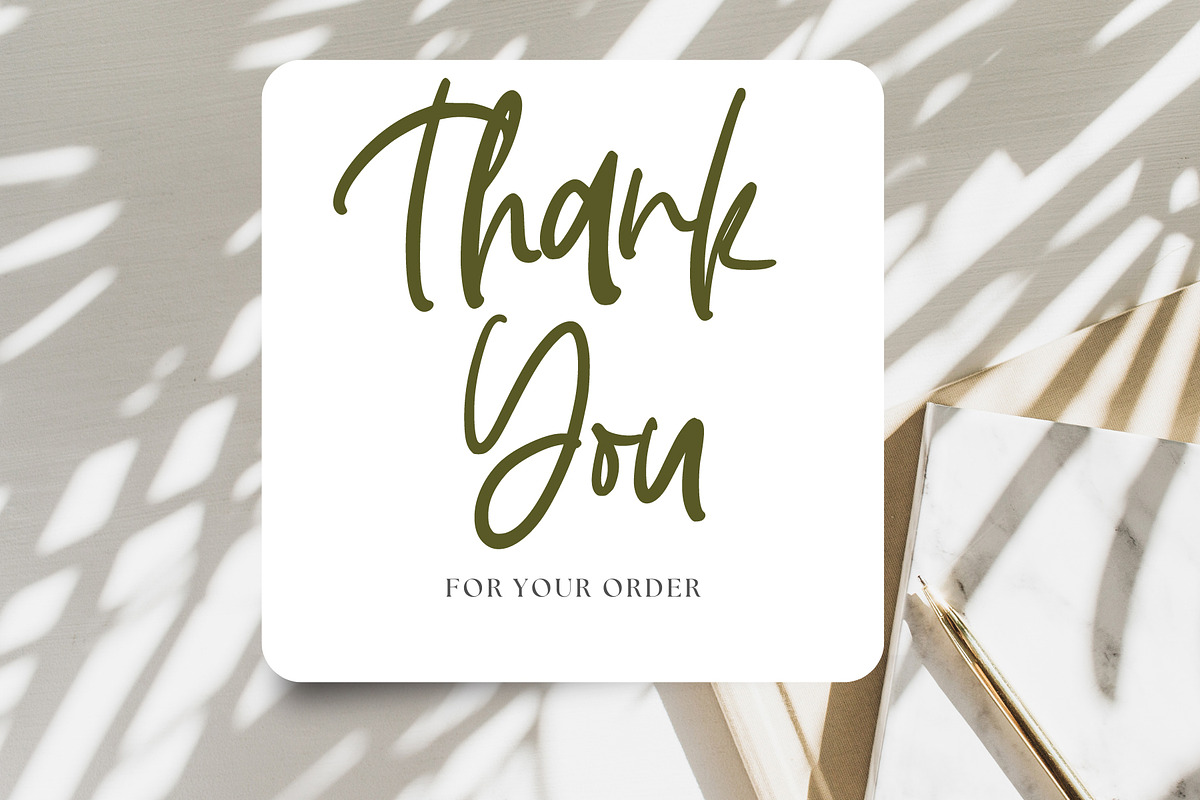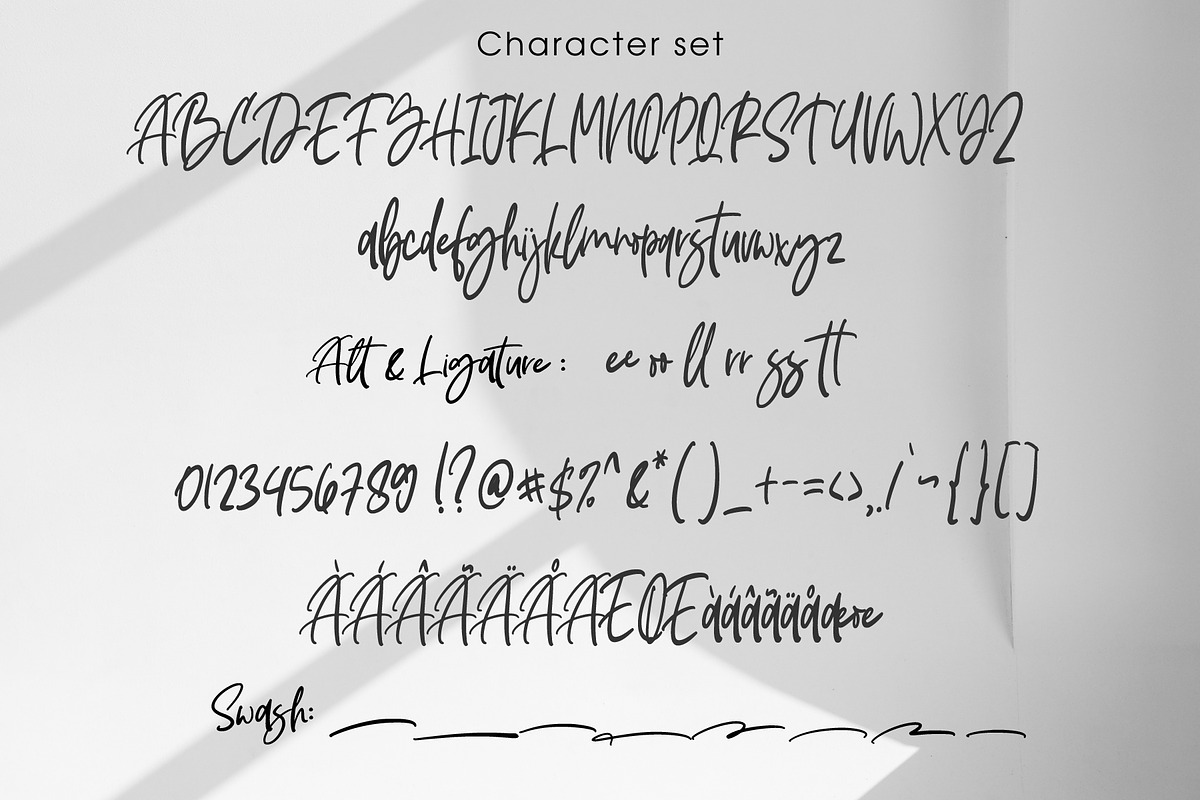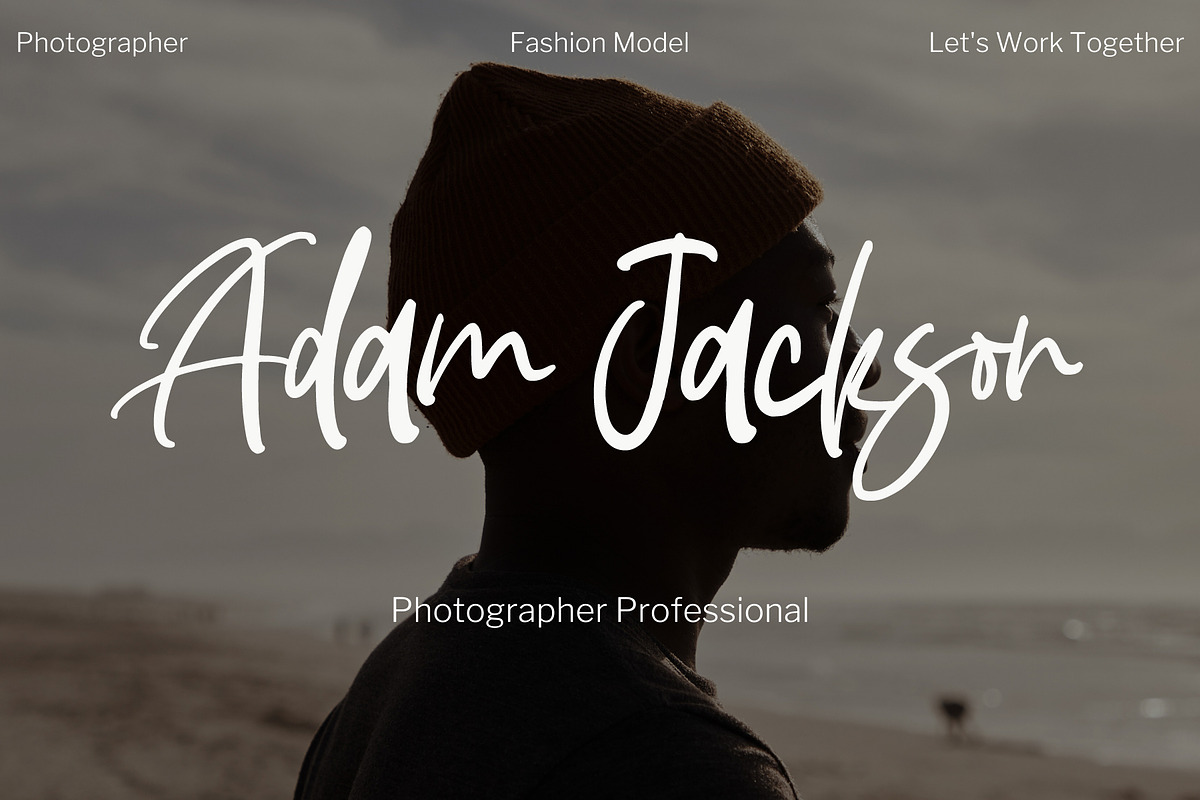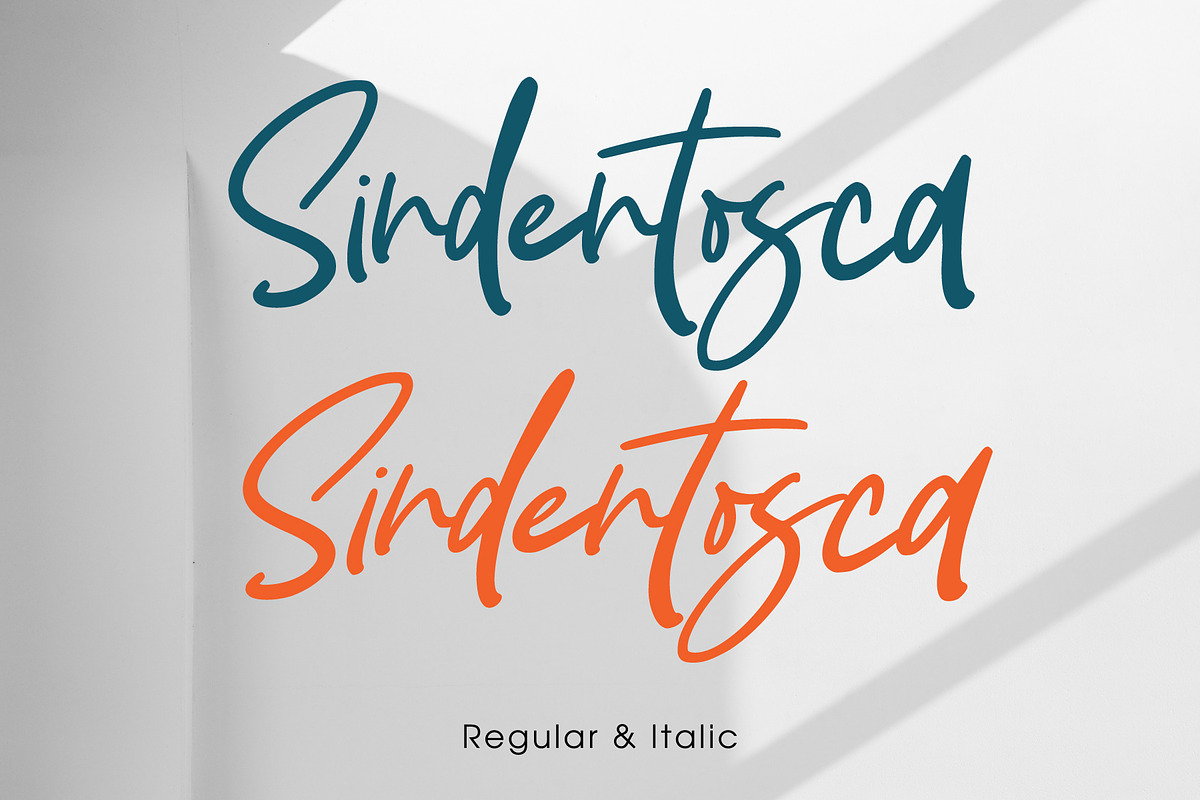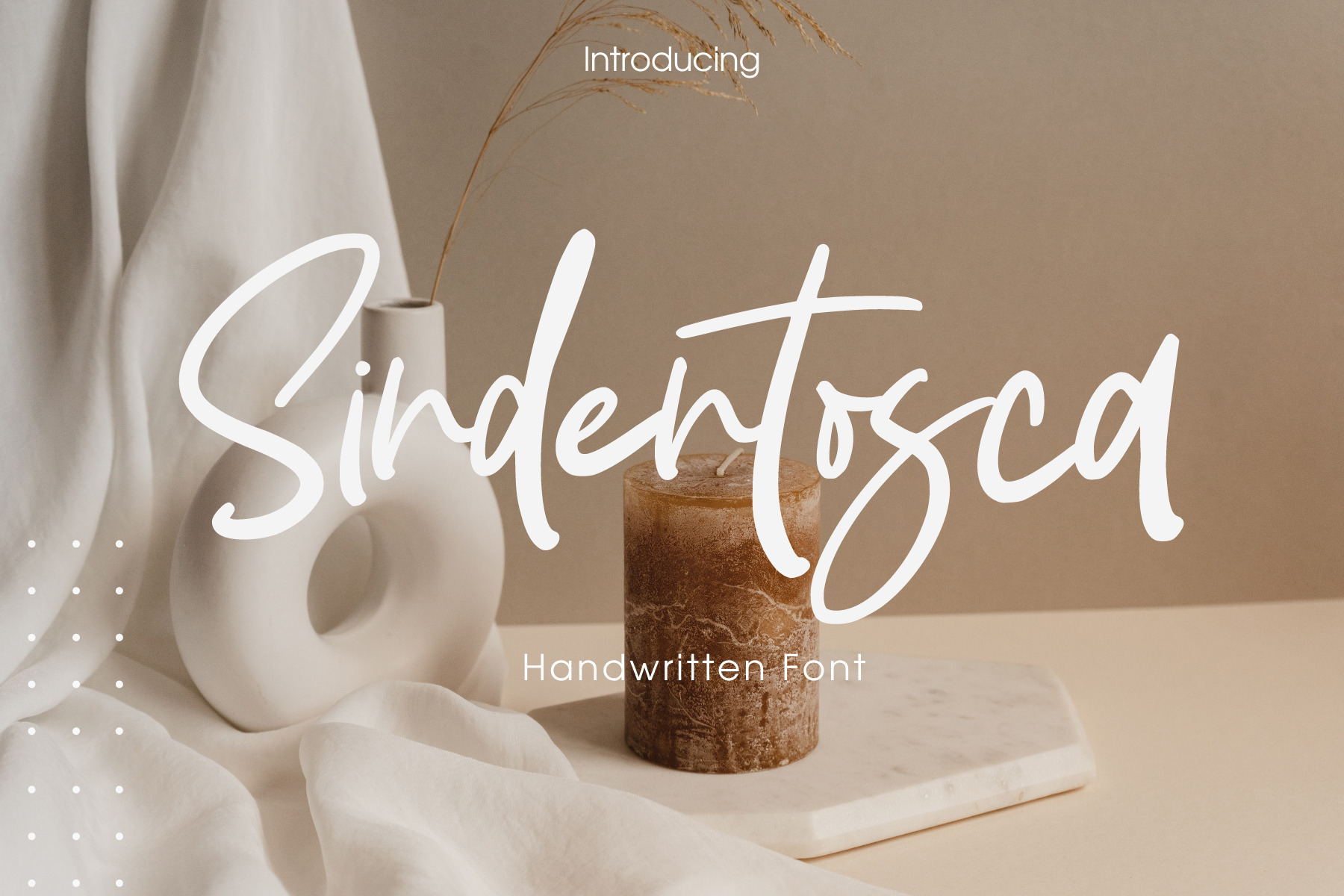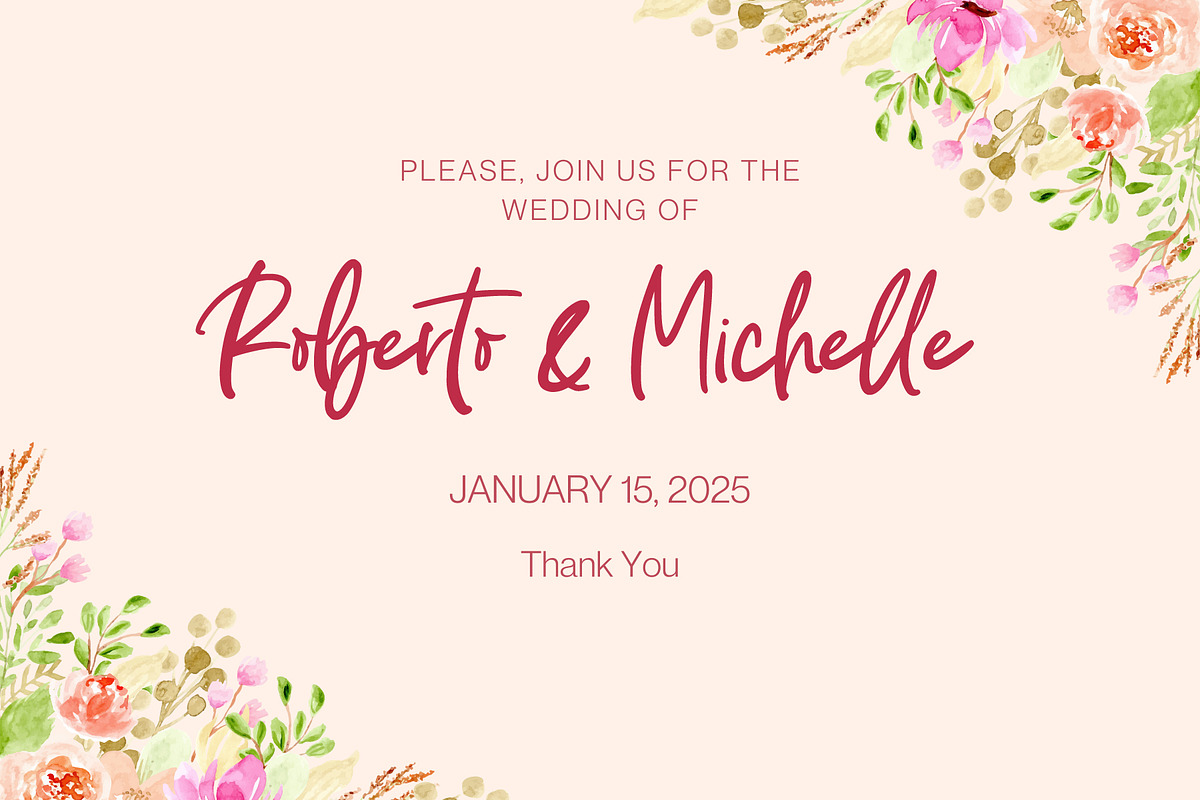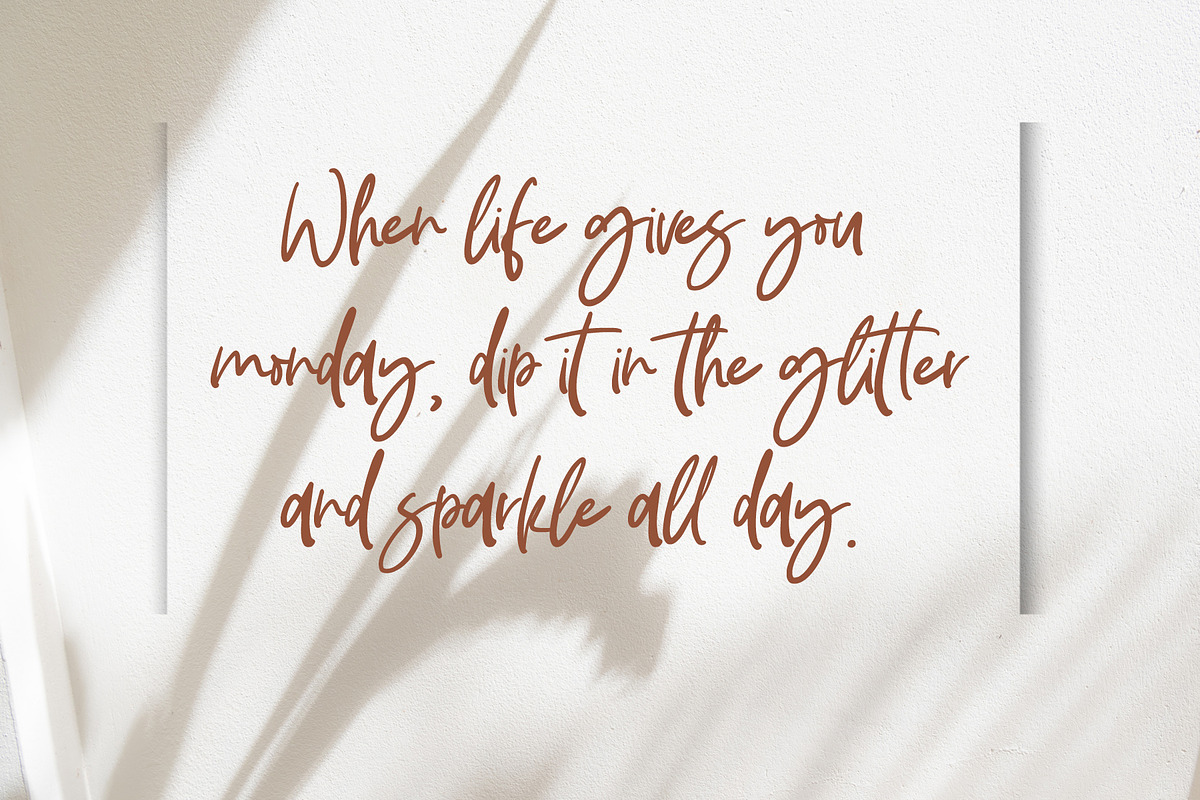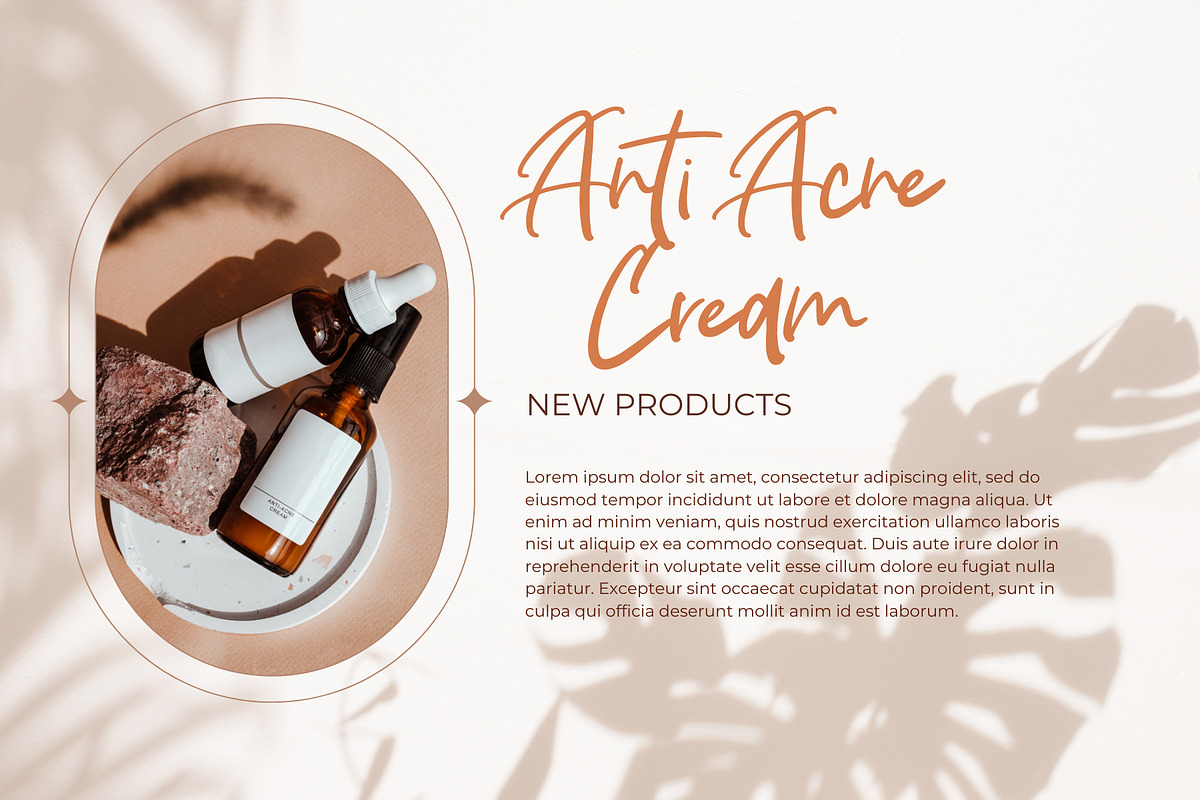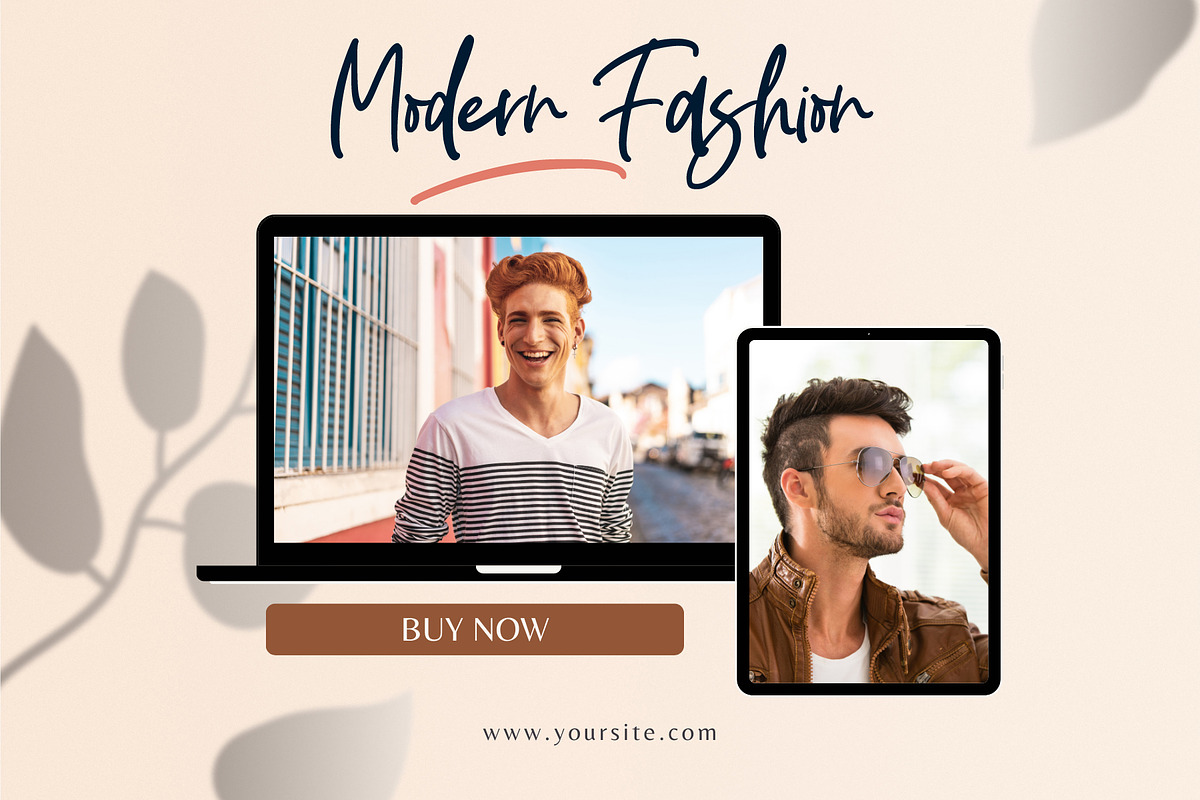
Sindentosca - Handwritten Font
Introducing
Sindentosca Font
Sindentosca is a handwritten font. Its modern charm makes it appear wonderfully, readable, and, ultimately, incredibly versatile. This font will look outstanding in any context, whether it’s being used on busy backgrounds or as a standalone headline!